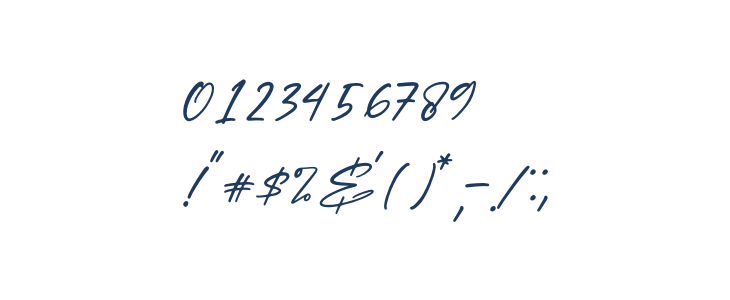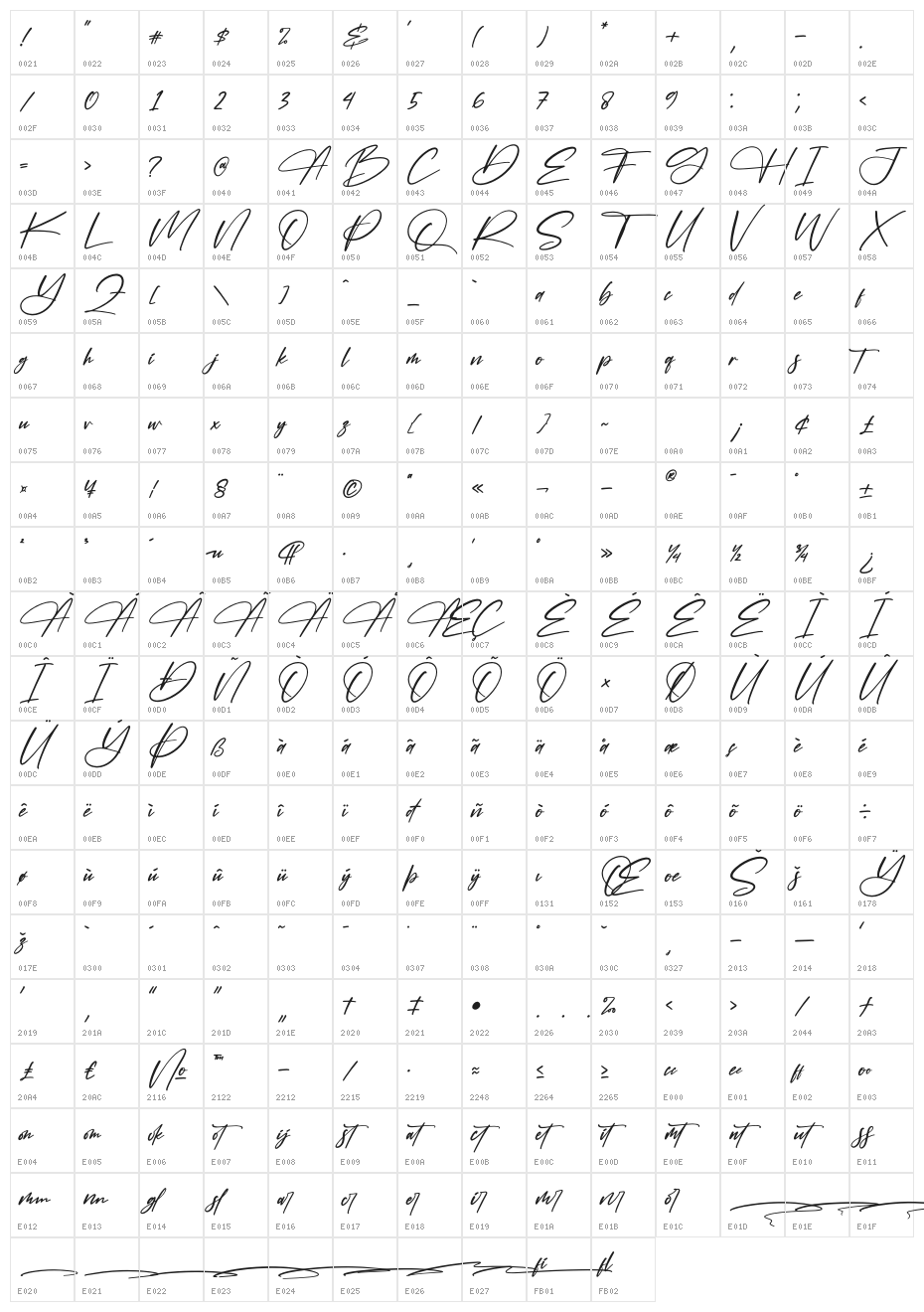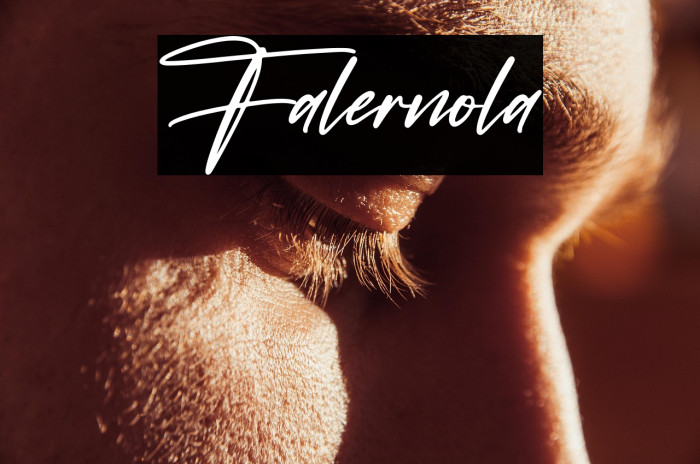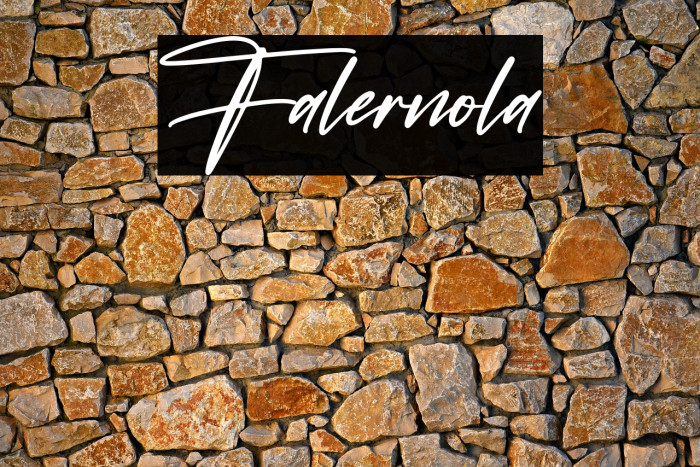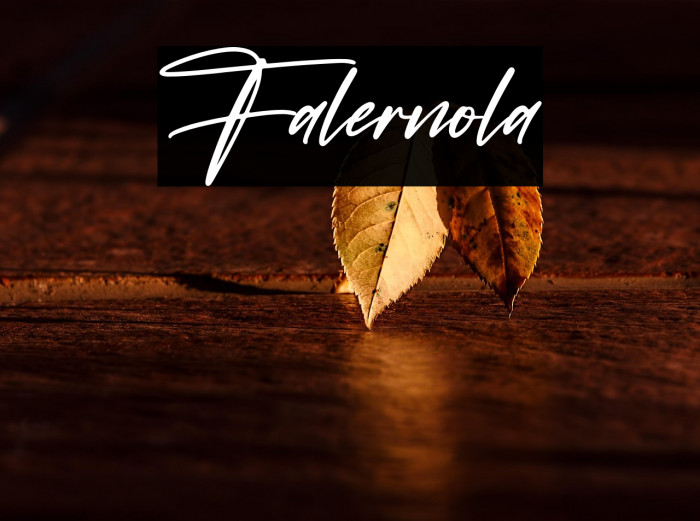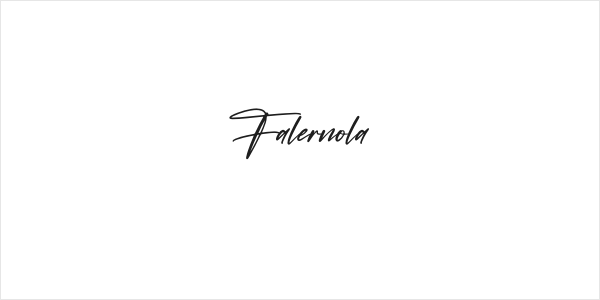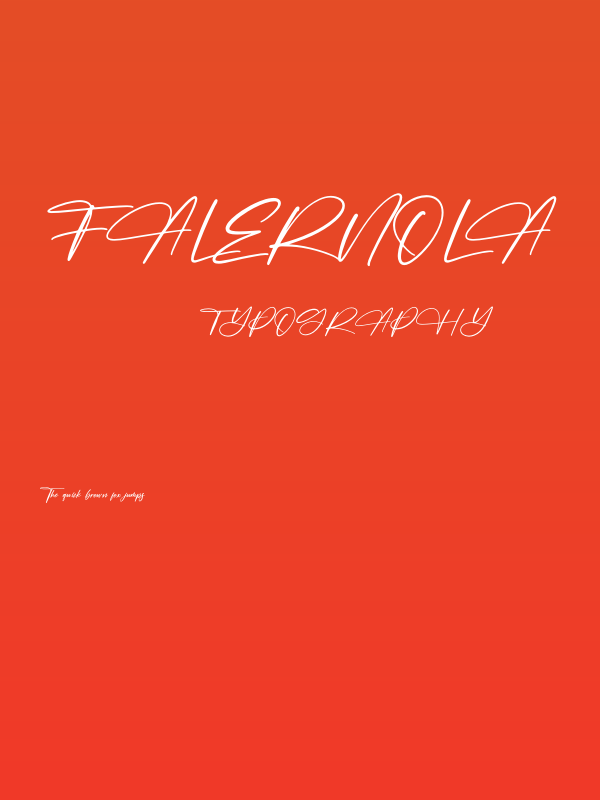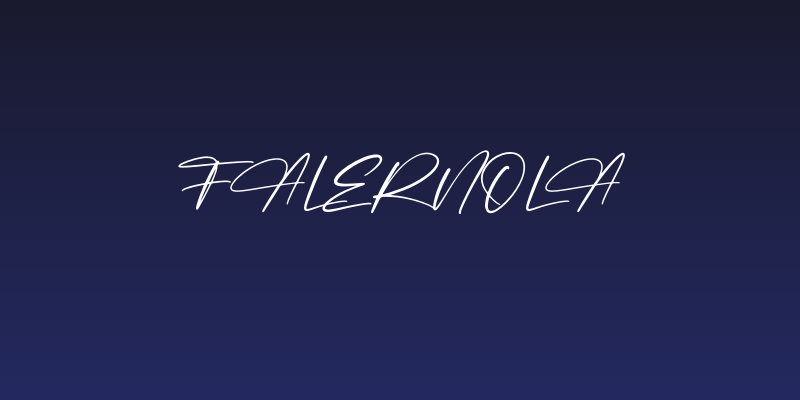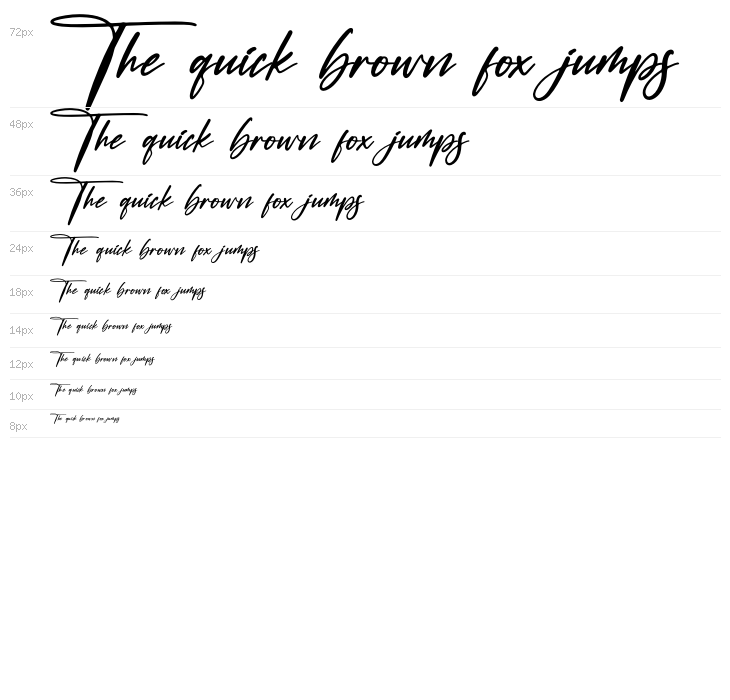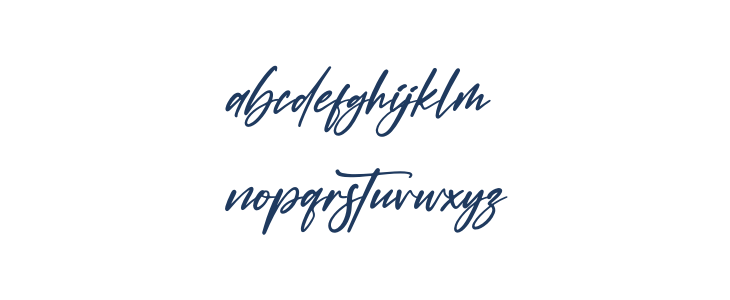
Falernola Font
Falernola Description
This font exudes a dynamic and elegant script style, characterized by its flowing, cursive letterforms. The uppercase letters are particularly striking, with sweeping lines and dramatic flourishes that convey a sense of sophistication and flair. The lowercase letters maintain a consistent fluidity, with smooth connections and a slightly more compact form. The numerals are stylishly integrated, matching the overall cursive theme. Special characters are thoughtfully designed, adding to the font's versatility. This font is ideal for projects that require a touch of elegance and personality, such as invitations, branding, or editorial design.
| Overall Style | Elegant, Dynamic |
| Use Case | Headlines, Invitations, Branding |
| Proposed Projects | Ideal for wedding invitations, branding, editorial design, and elegant packaging. |